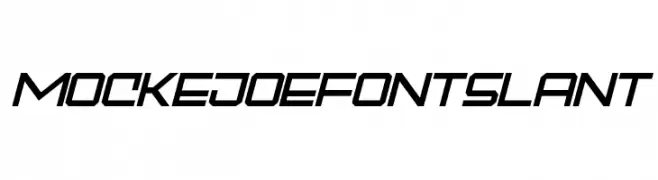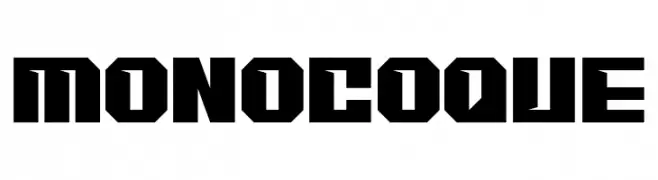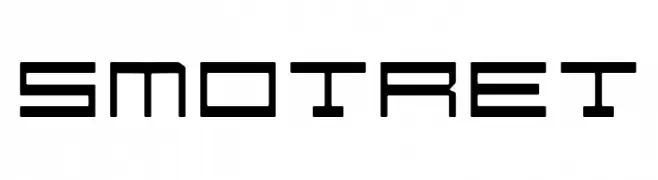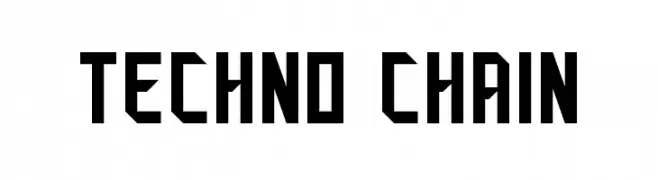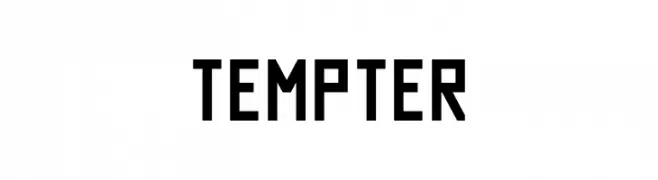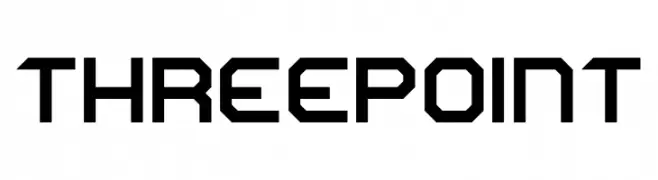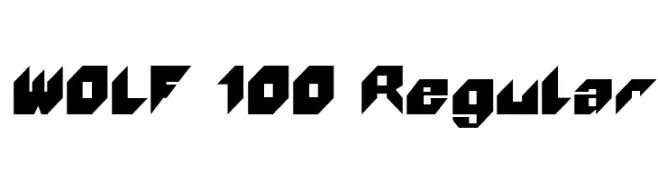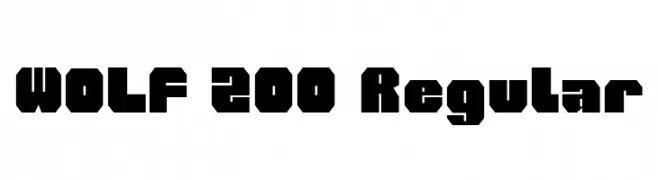
( Fonts by Tebaltipis Studio )
A bold, angular, and slanted font with a futuristic and dynamic style.
( Fonts by Tokokoo Studio )
A bold, geometric font with a futuristic and industrial design.
( Fonts by Konstantinas Ladauskas )
A geometric, futuristic font with angular, block-like structures.
( Fonts by Fontherapy | Kalifont Studio )
A bold, geometric font with a futuristic and angular design.
( Fonts by Chequered Ink )
A bold, geometric font with sharp angles and a modern aesthetic.
( Fonts by Mason Mulcahy )
A bold, geometric font with an industrial and futuristic style.
( Fonts by 177Studio )
A bold, angular font with a futuristic and edgy design.
( Fonts by 177Studio )
A bold, geometric font with a futuristic and industrial design.
( Fonts by 177Studio )
A bold, geometric font with sharp angles and a modern, edgy style.
( Fonts by 177Studio )
A bold, geometric font with strong, angular lines and a blocky appearance.